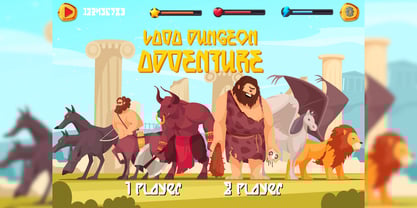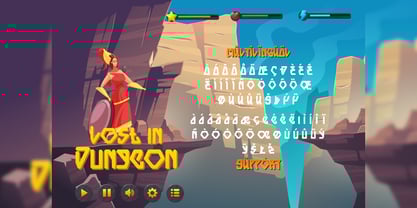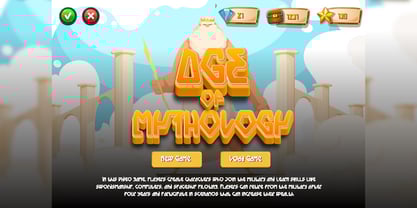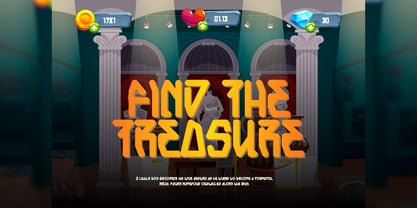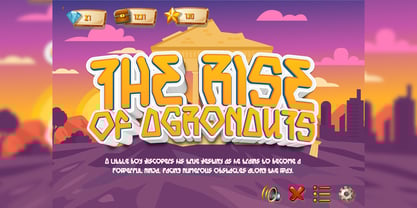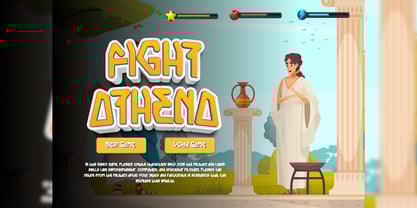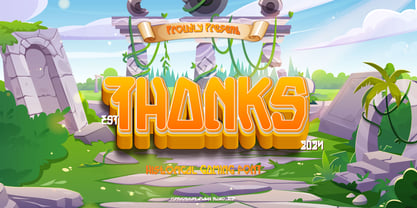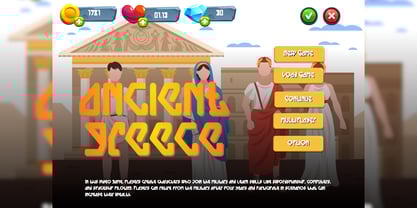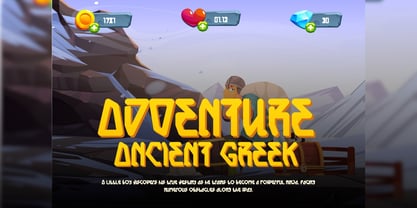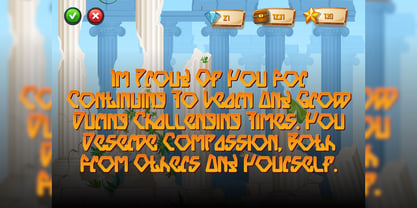
Asgard Grexco
The Asgard Grexco Font Family was designed by Dhimas Habibie and published by Yumnacreative. Asgard Grexco contains 1 styles. More about this family
Introducing Asgard Grexco - Historical Gaming Font
This Font is a delicate, elegant and flowing handwritten font. It has beautiful and well as a unique blend of ligatures a letter, so that the authors compose it with a and little swirly embedding, so that a modern font is formed and ready to make a statement by adding elegant and unique flair to your next design project. Add it to your most creative ideas and notice how it makes them come alive!
FEATURES
- Uppercase and Lowercase letters
- Numbering and Punctuations
- Multilingual Supports